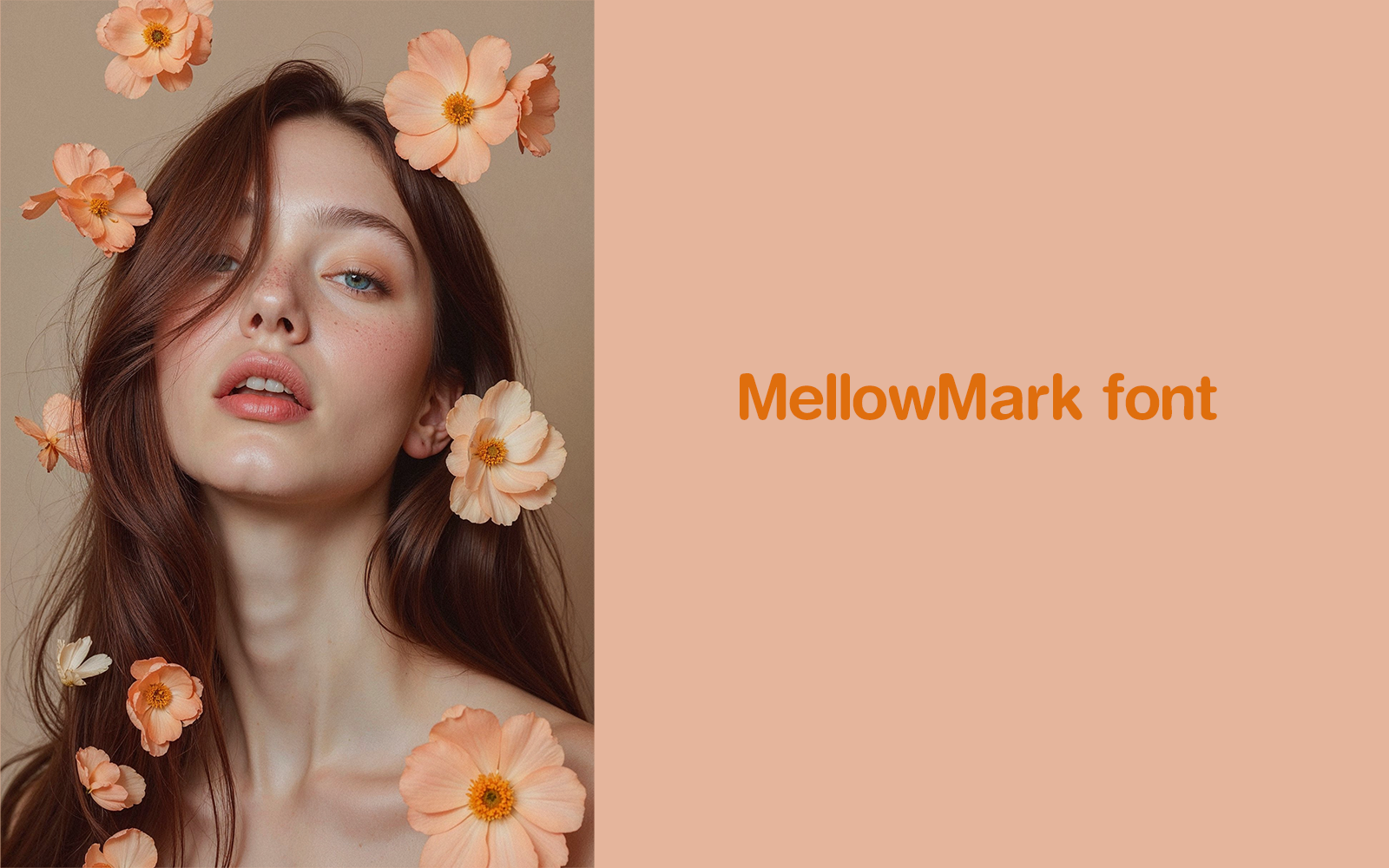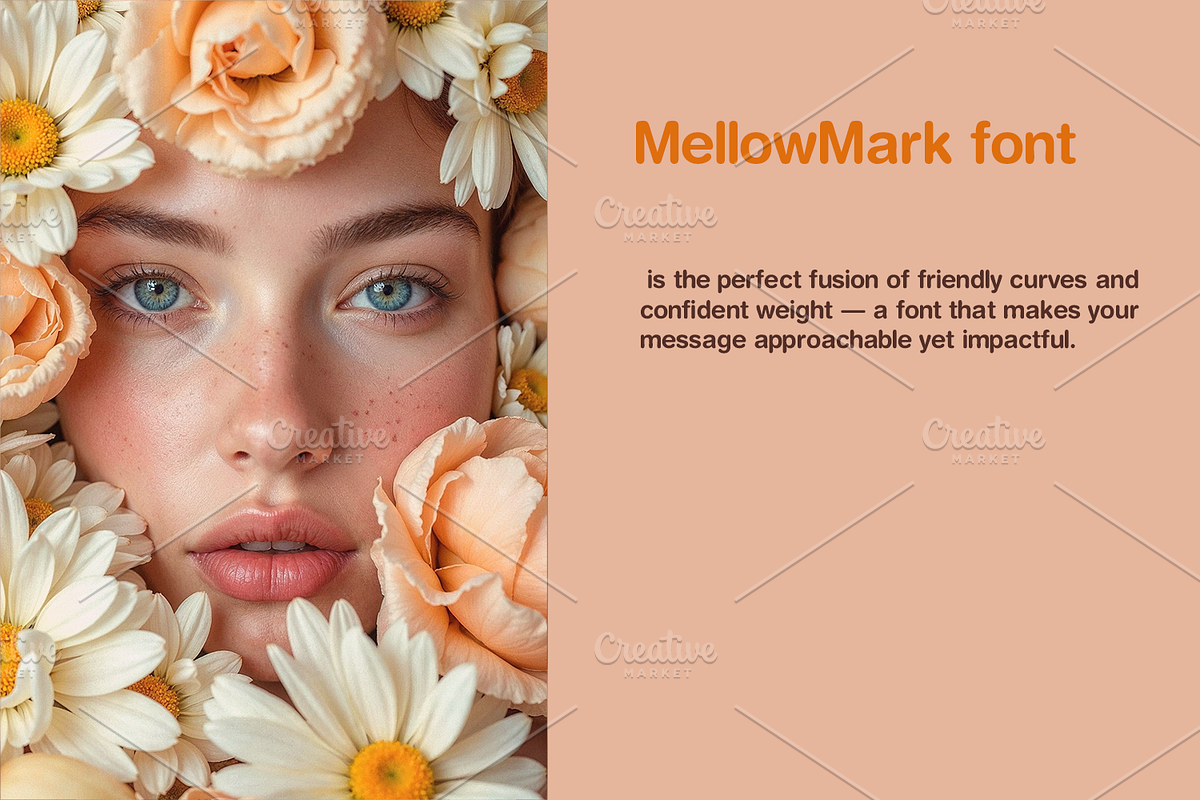
MellowMark font-Bold-0102-25
Say hello to bold personality with a soft edge. MellowMark is the perfect fusion of friendly curves and confident weight — a font that makes your message approachable yet impactful.
Whether you're designing for lifestyle brands, tech startups, children’s content, or bold packaging, this typeface adds warmth and modernity to any project. Let your words speak with style, clarity, and charm.